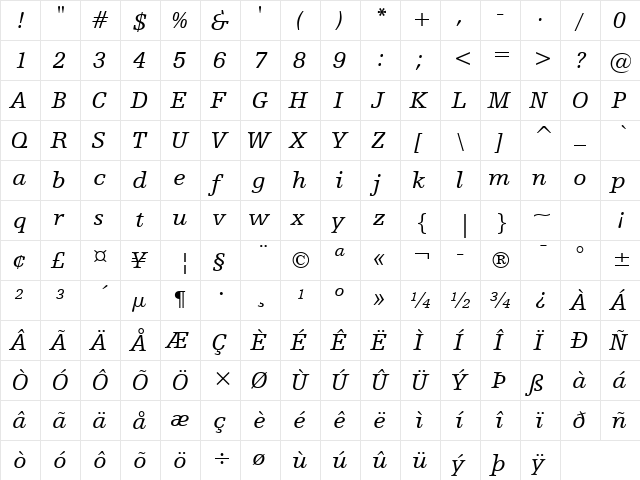
HumstSlab712 BT Italic Font Preview
HumstSlab712 BT Italic
HumstSlab712 BT Italic Font Details
Design Context for HumstSlab712 BT Typeface
HumstSlab712 BT features prominent, blocky serifs that give it a confident, grounded presence — equally at home in editorial settings and bold branding work. The dynamic lean of this cut emphasises speed and emphasis in any layout.
Works well in editorial design, news publishing, impactful branding, and poster typography.
Pro Tip: Try HumstSlab712 BT set tight in headlines for a classic editorial feel. Its slab serifs create strong horizontal rhythm that anchors a page layout.